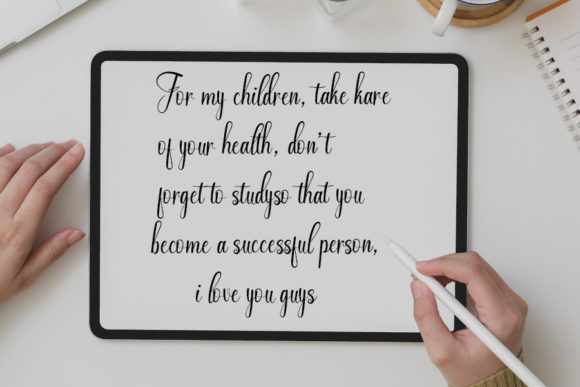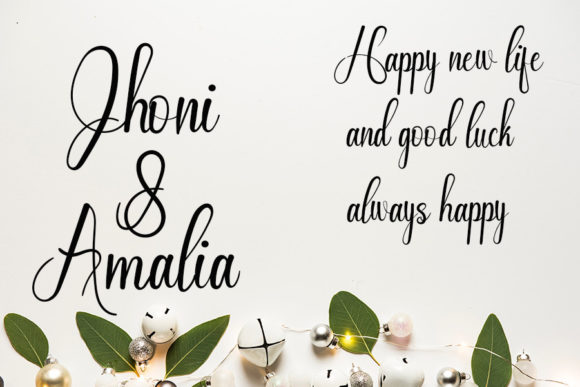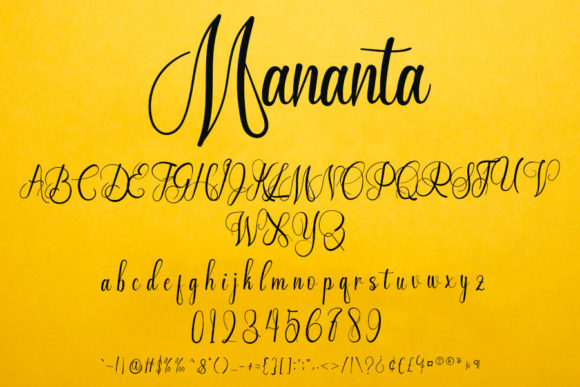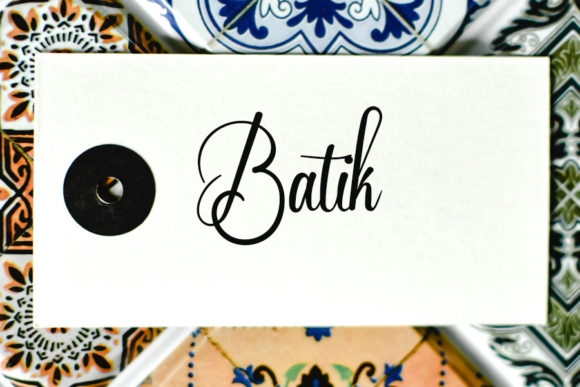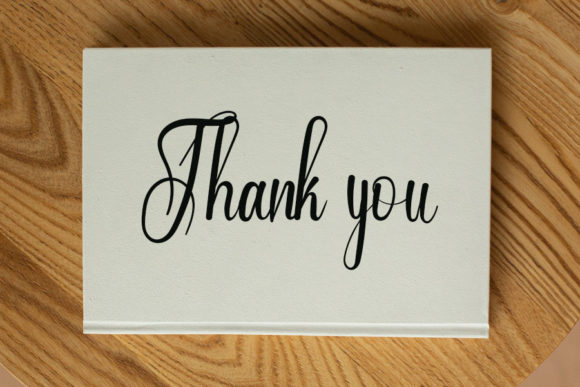
Introduction to Mananta Font
Mananta is a casual handwritten font, carefully designed to become a true favorite.
Key Features of Mananta Font
Why Choose Mananta Font?
Mananta Font offers exceptional quality and versatility, making it a valuable addition to your design toolkit. Whether you’re creating for personal projects or commercial use, Mananta Font delivers professional results.